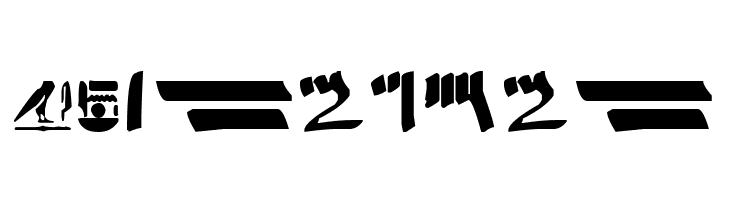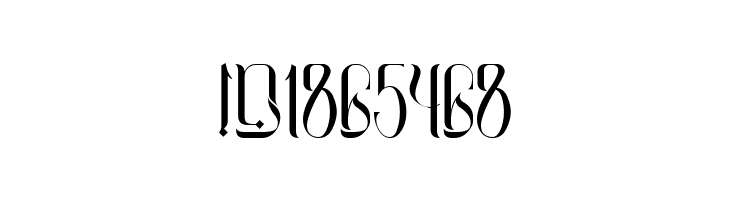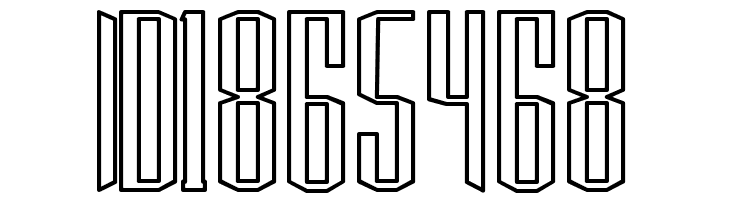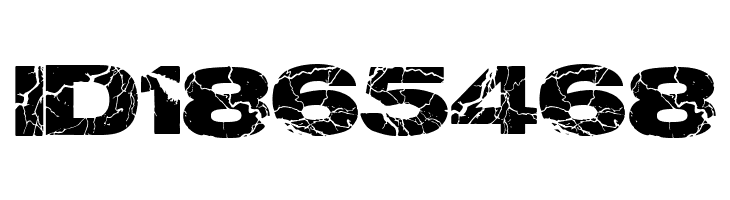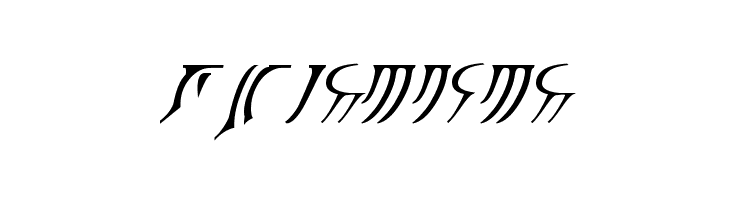
• Egyptian Letters
Pictorial, hieroglyph-inspired decorative font.
• Egyptian Nights
A bold, decorative font with intricate patterns and geometric shapes.
• Eid Mubarak
An artistic and decorative font with intricate curves and loops.
• Eiffel Lover
A decorative, tall, and narrow font with intricate detailing.
• eighties
A bold, retro 3D font with a playful, sketch-like style.
• Eisenhower
• Eladrin
A calligraphic font with sharp, angular strokes and elegant curves, evoking a fantasy or ancient script style.
• Elcsa
• electrical
A bold, cracked texture font with a rugged, edgy appearance.
• Elegrand Gothic Bold Demo